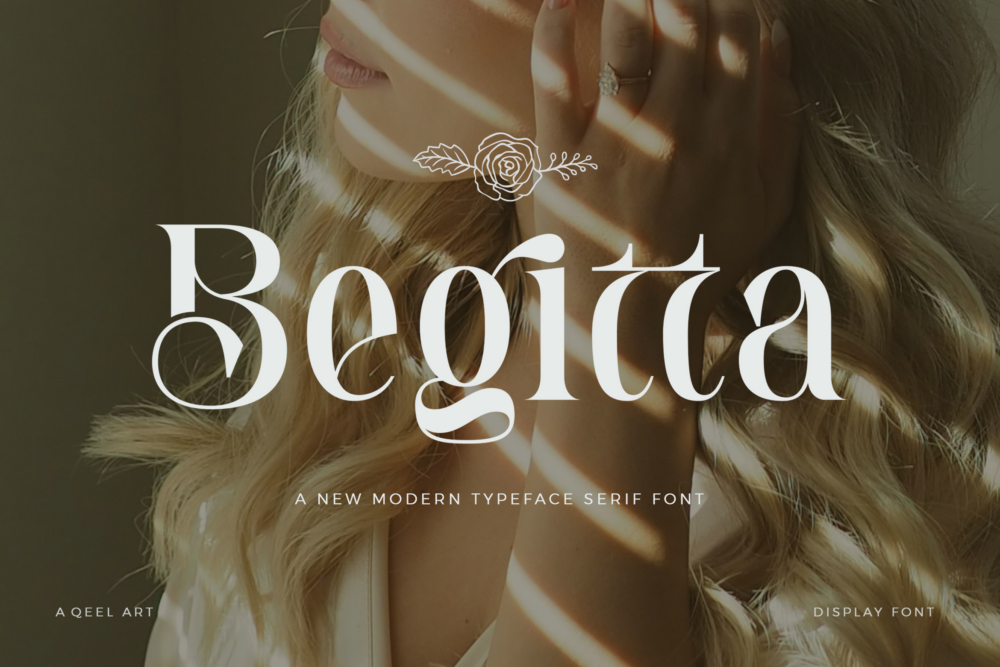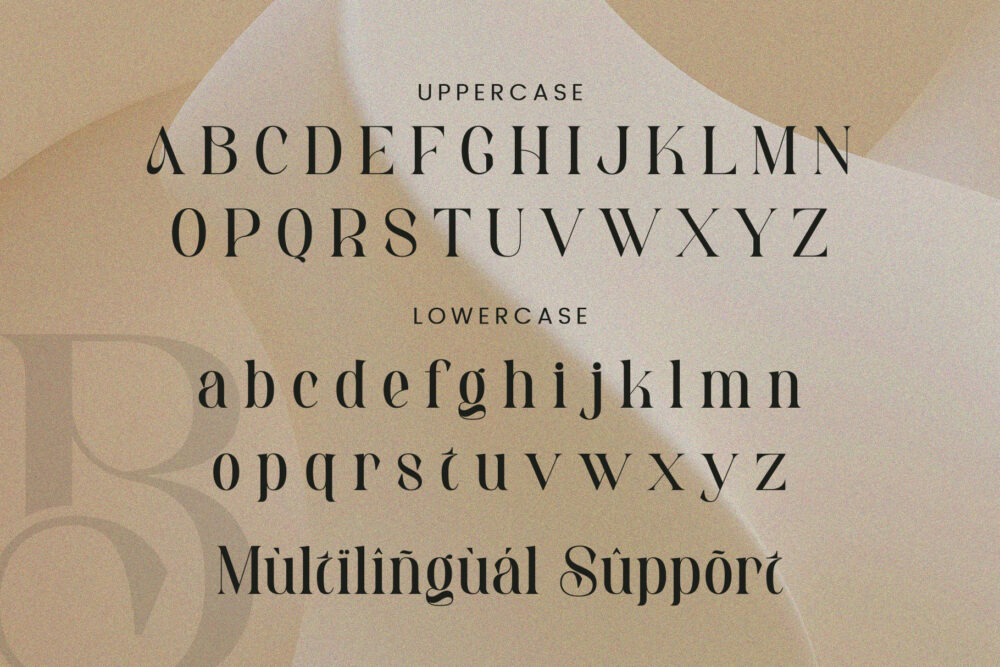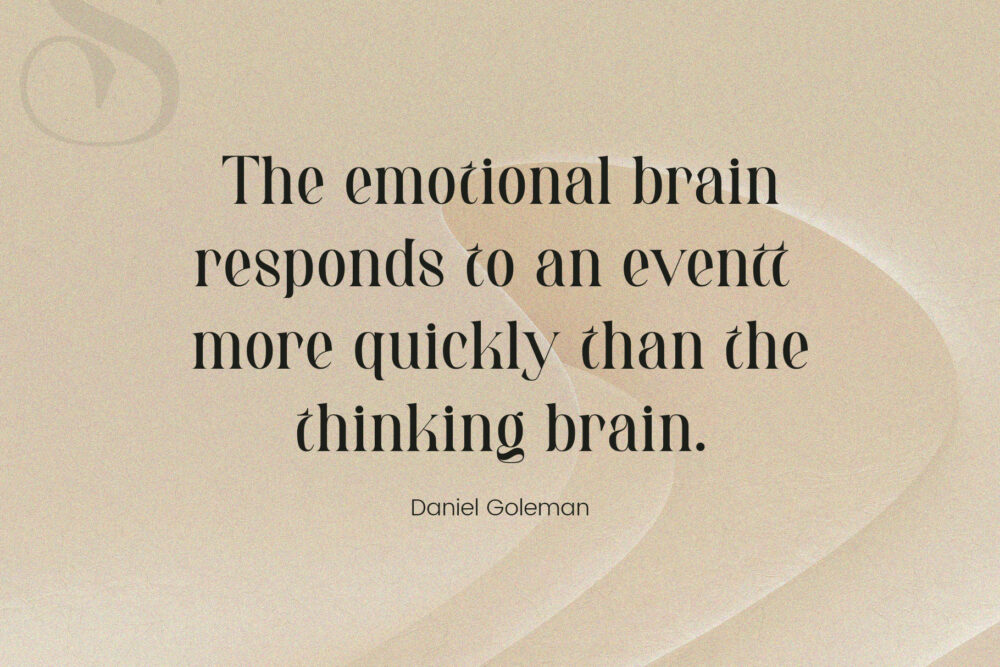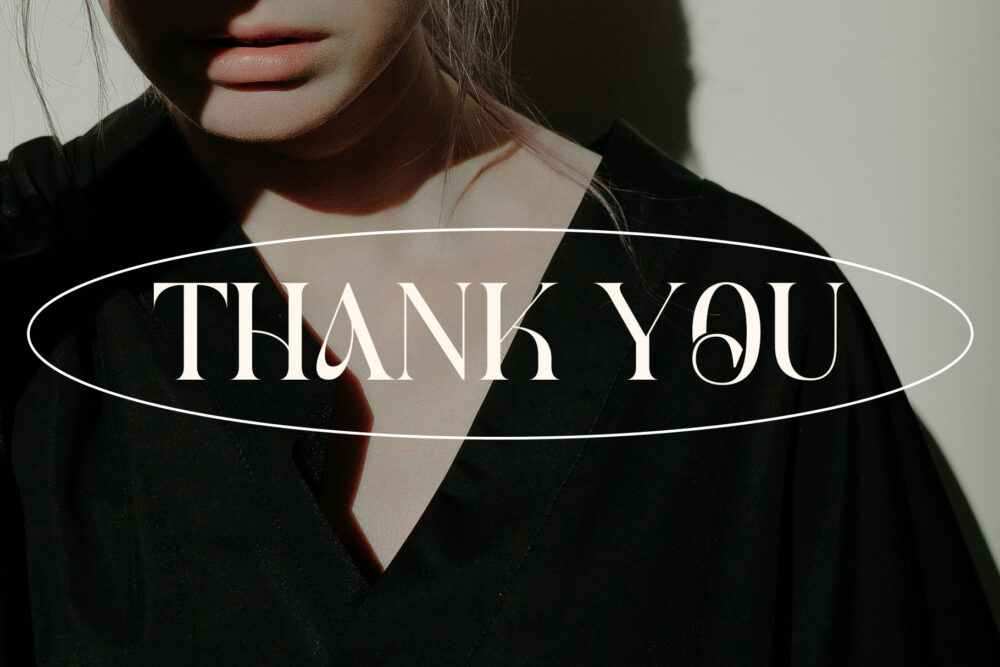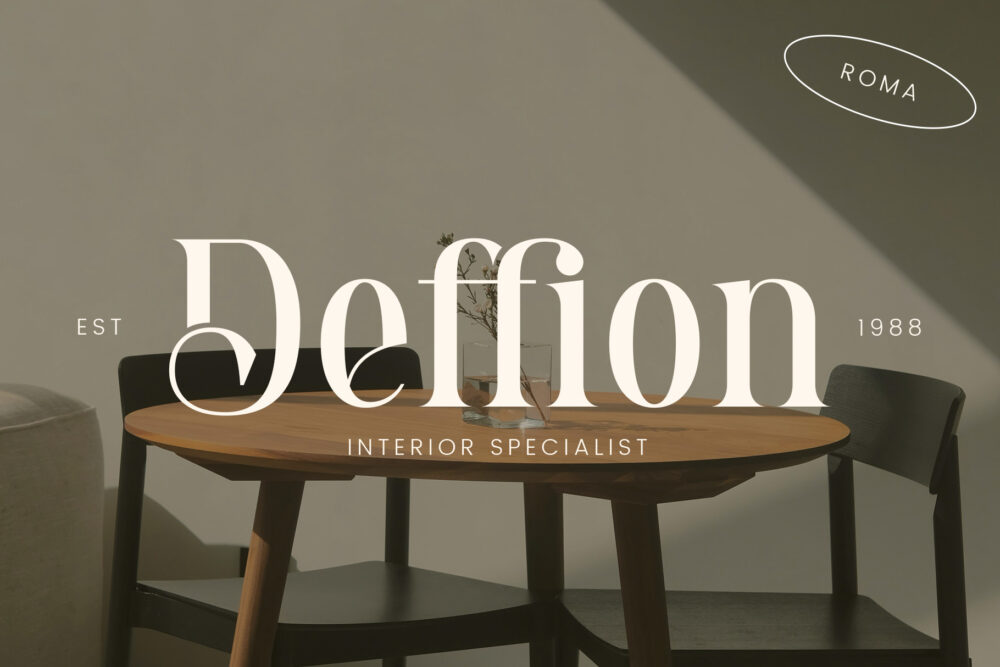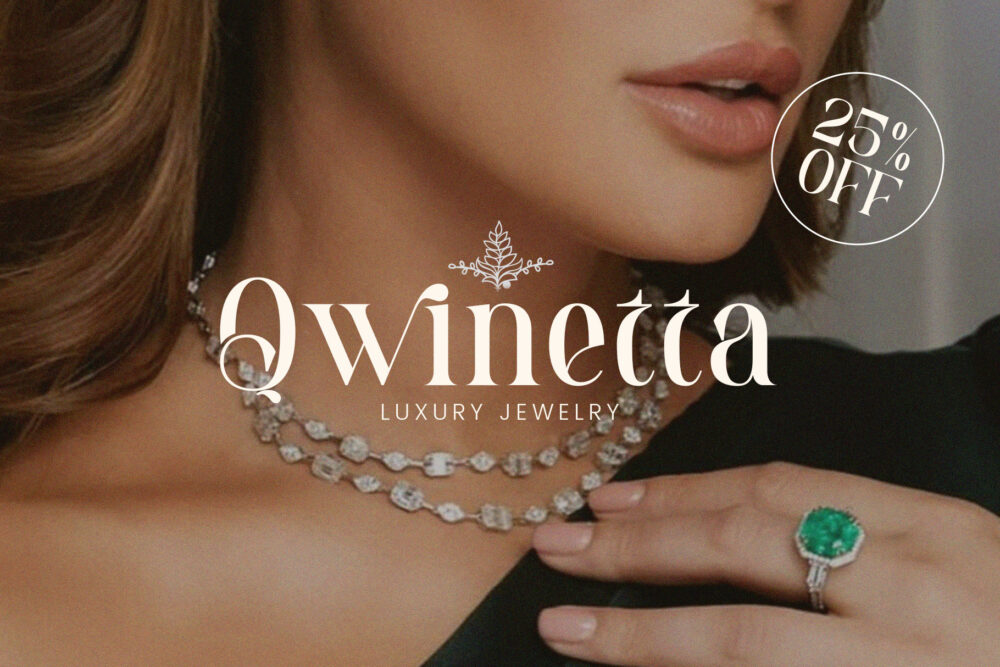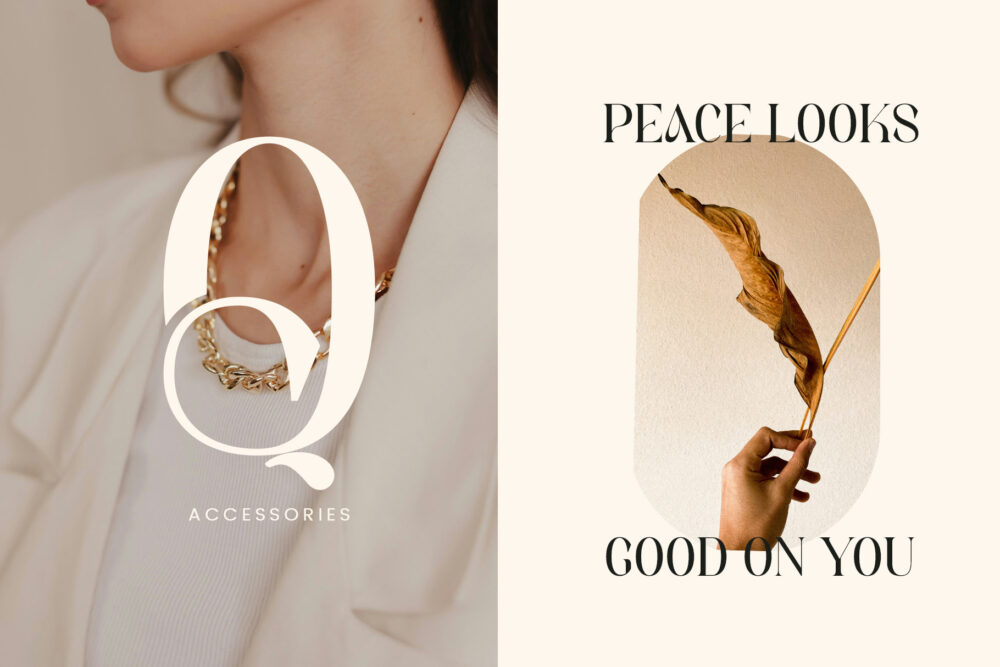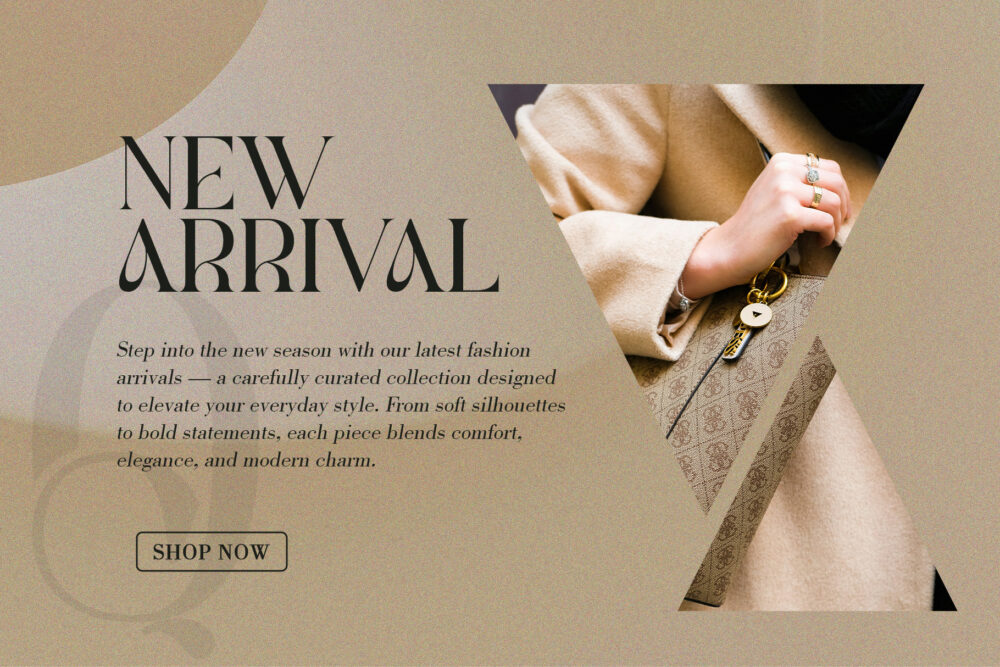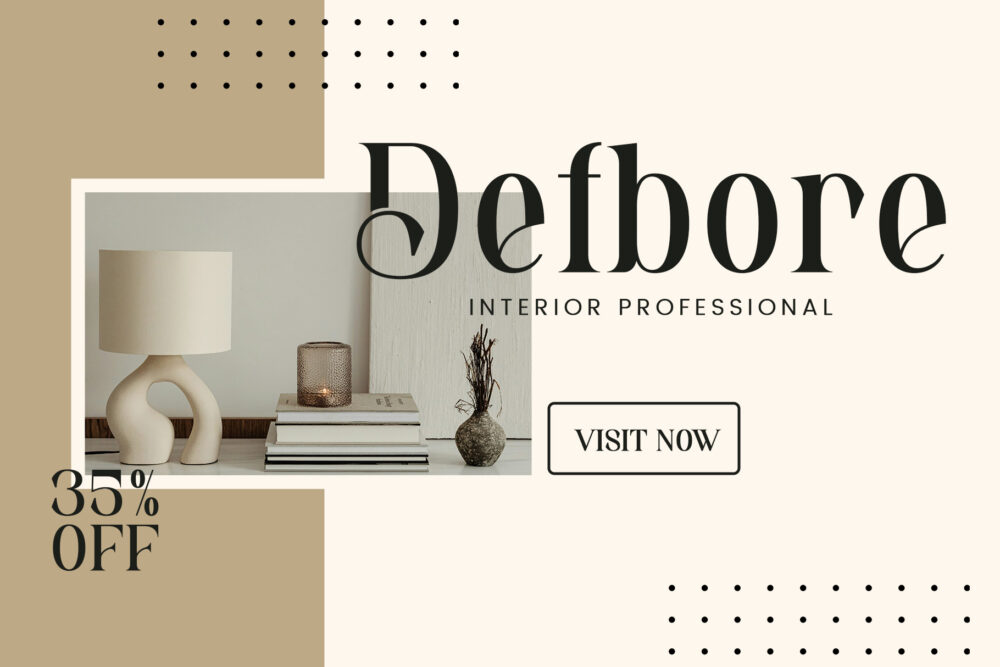
Begitta
Begitta Stylish Ligature Typeface, inspired by the famous minimalist logo perfect for the purposes of designing templates, brochures, videos, advertising branding, logos and more.
Begitta – Modern Serif Font